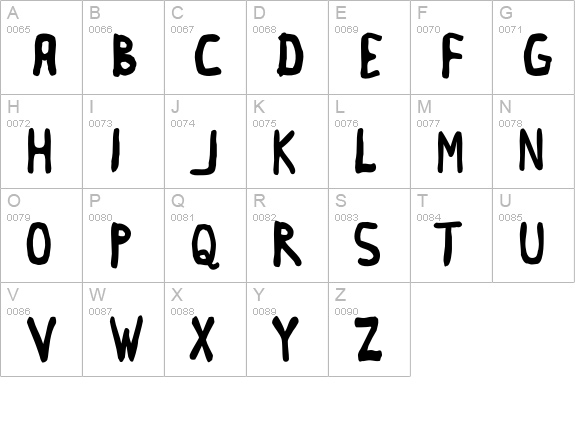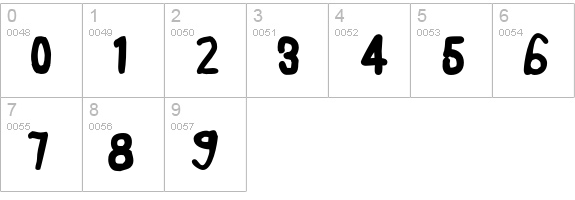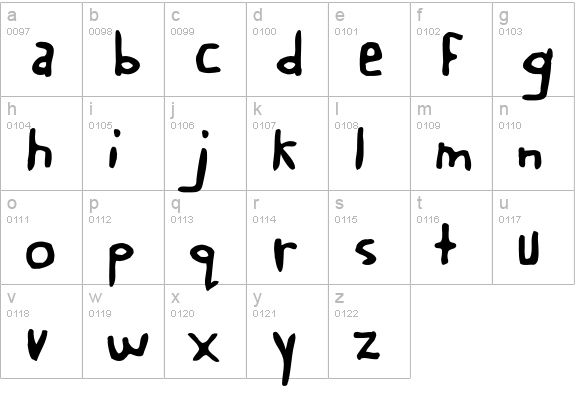
Buttweasel Font Details
Introducing Buttweasel font - a whimsical and playful typeface that will add a touch of fun to your projects. This quirky font features curvy lines and unique character shapes that make it stand out from the crowd. Whether you're working on a poster, logo, or social media graphic, Buttweasel font is sure to grab attention and bring a smile to your audience's face. Best of all, Buttweasel font is available for free download at FontsMarket.com. This means you can easily add this charming font to your collection without breaking the bank. Don't miss out on the opportunity to enhance your designs with the delightful Buttweasel font today!